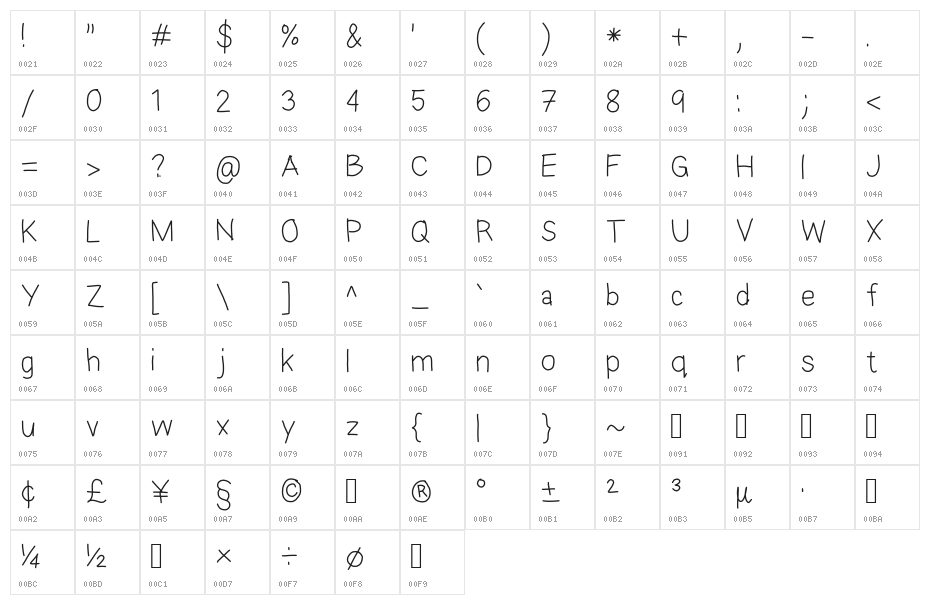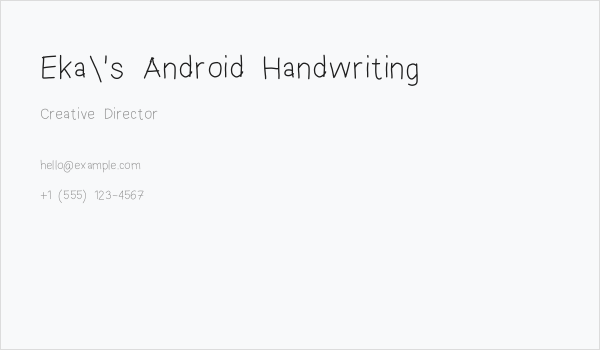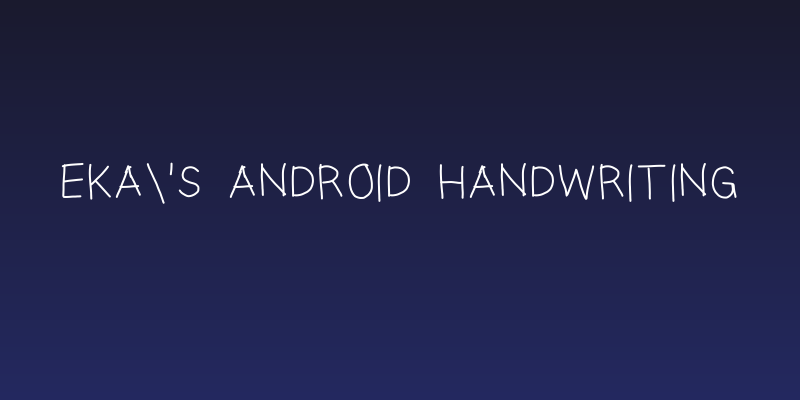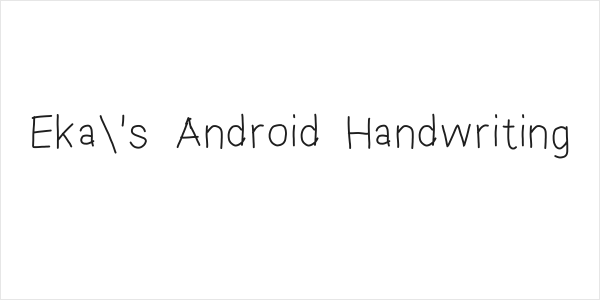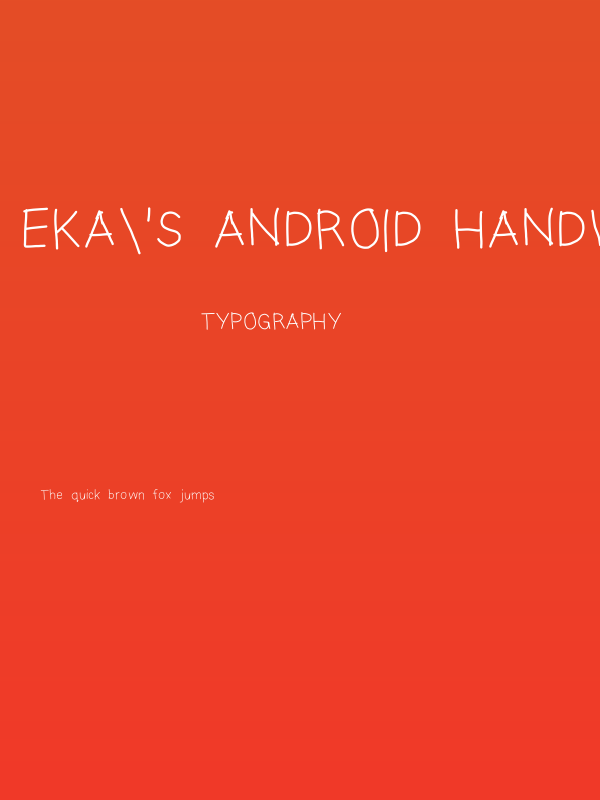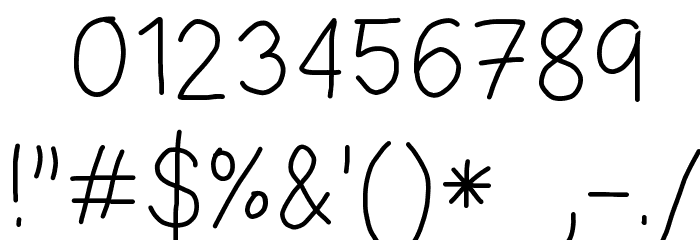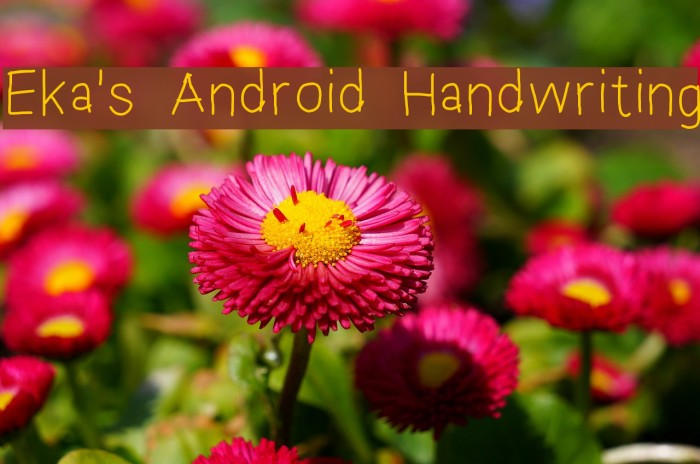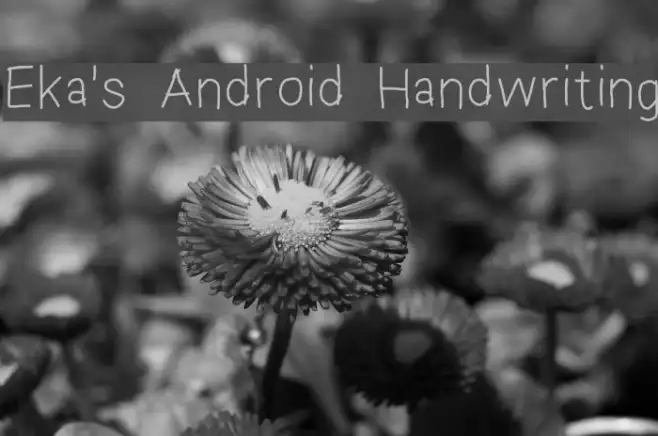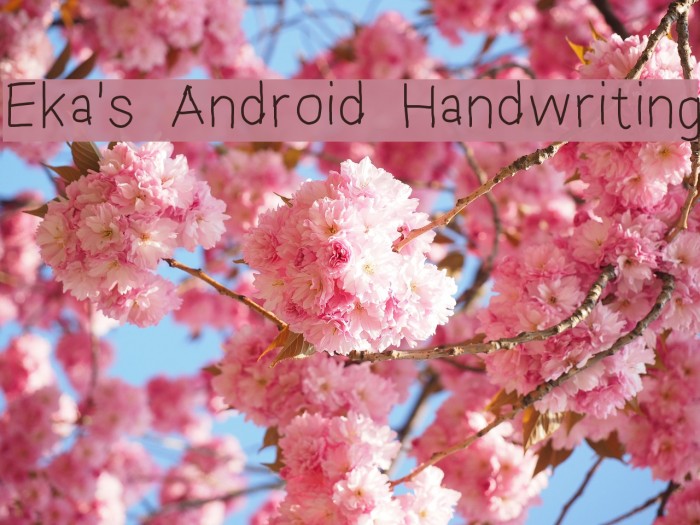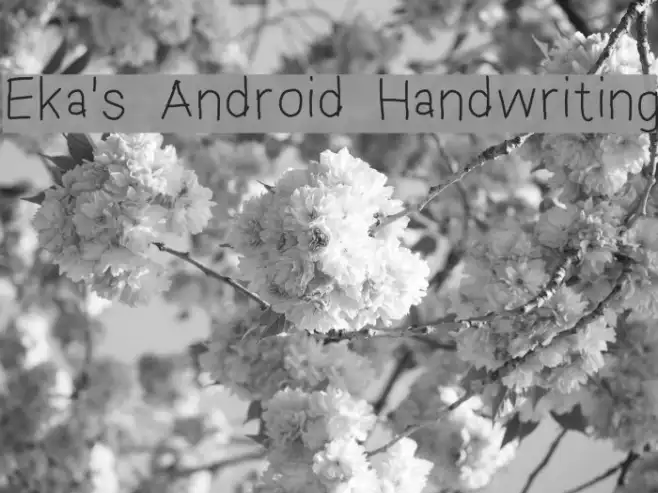
Eka's Android Handwriting Font
Eka's Android Handwriting Description
This font features a casual, handwritten style that mimics the natural flow of penmanship. The characters are slightly uneven, adding to the authentic handwritten feel. Uppercase and lowercase letters are well-proportioned, with a playful yet legible appearance. The numbers and special characters maintain the same informal style, making the font versatile for various uses. The strokes are consistent in width, providing a cohesive look across all characters. This font is ideal for projects that require a personal touch, such as invitations, greeting cards, or informal branding.
| Use Case | Headlines, Informal text, Personal projects |
| Proposed Projects | Ideal for invitations, greeting cards, personal branding, and informal communications. |